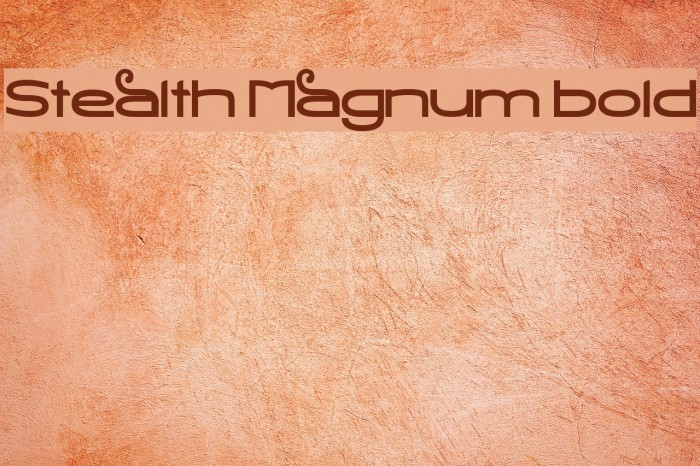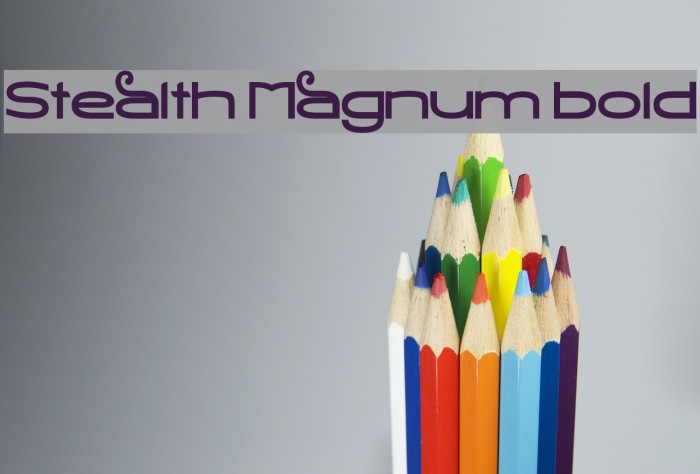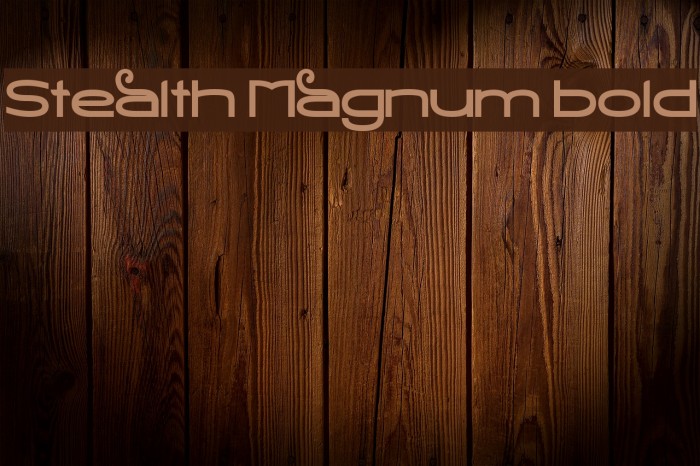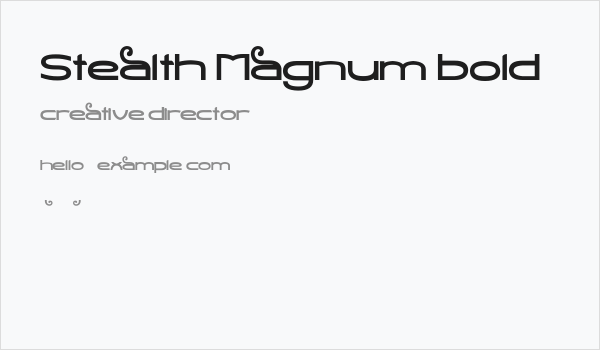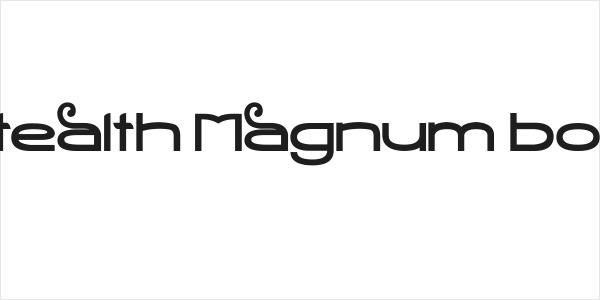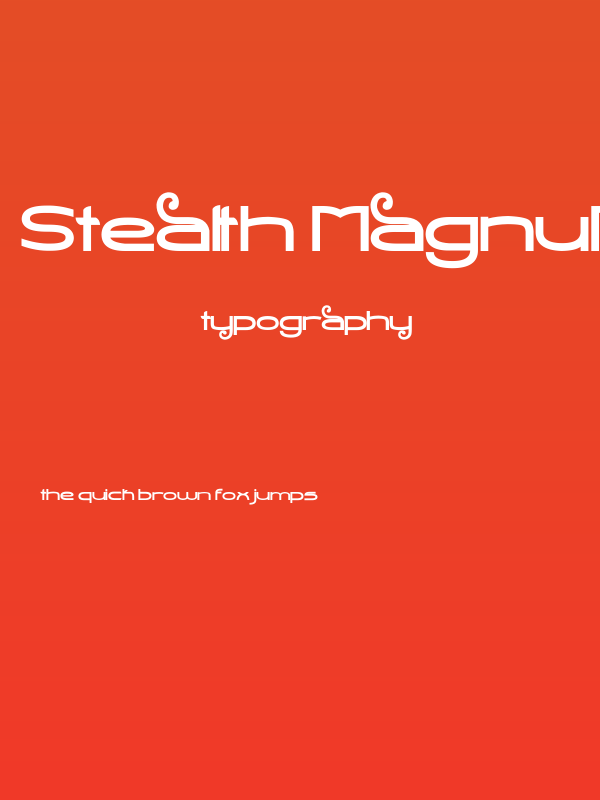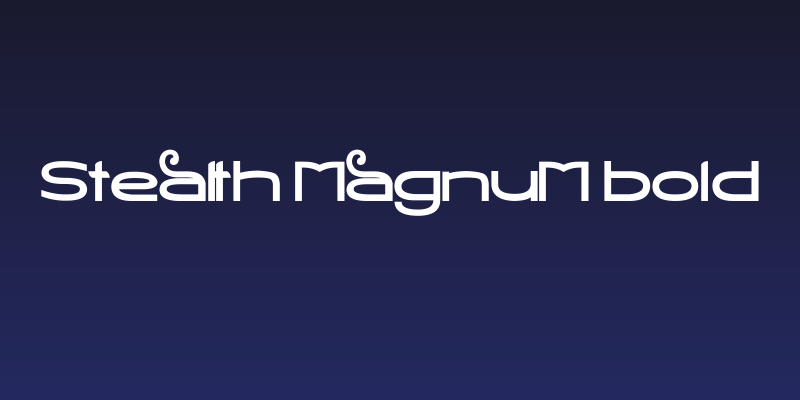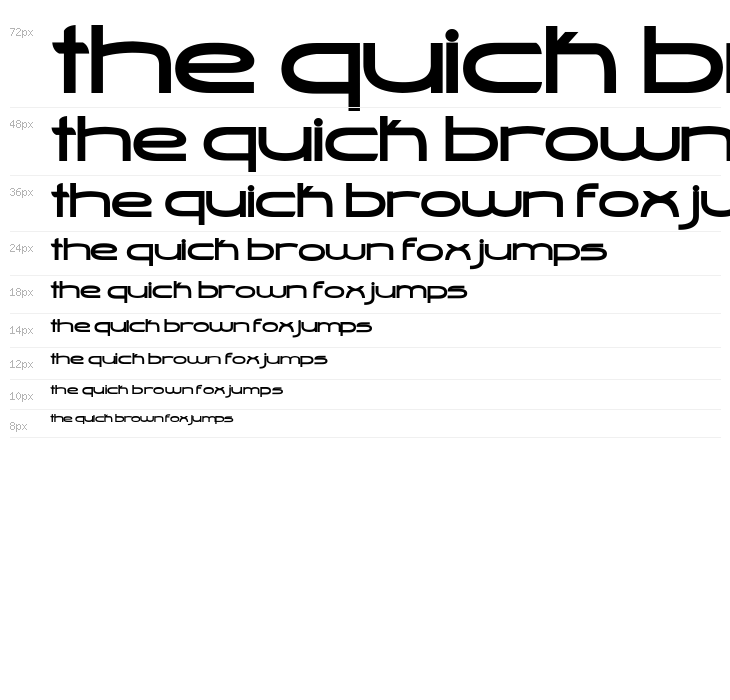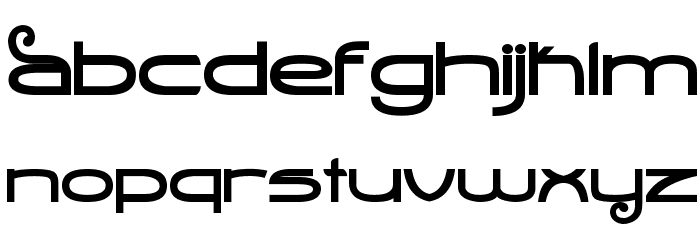
Stealth Magnum Bold Font
Stealth Magnum Bold Description
This font exhibits a bold and futuristic design with a unique geometric structure. The characters are crafted with a blend of sharp angles and smooth curves, creating a dynamic and modern appearance. The uppercase and lowercase letters maintain a consistent style, emphasizing a sleek and streamlined look. The numerals and special characters follow the same design principles, ensuring uniformity across all glyphs. This font's boldness and distinctiveness make it stand out, ideal for projects that require a strong visual impact.
| Proposed Projects | Ideal for technology branding, sci-fi movie posters, video game titles, and modern advertising campaigns. |